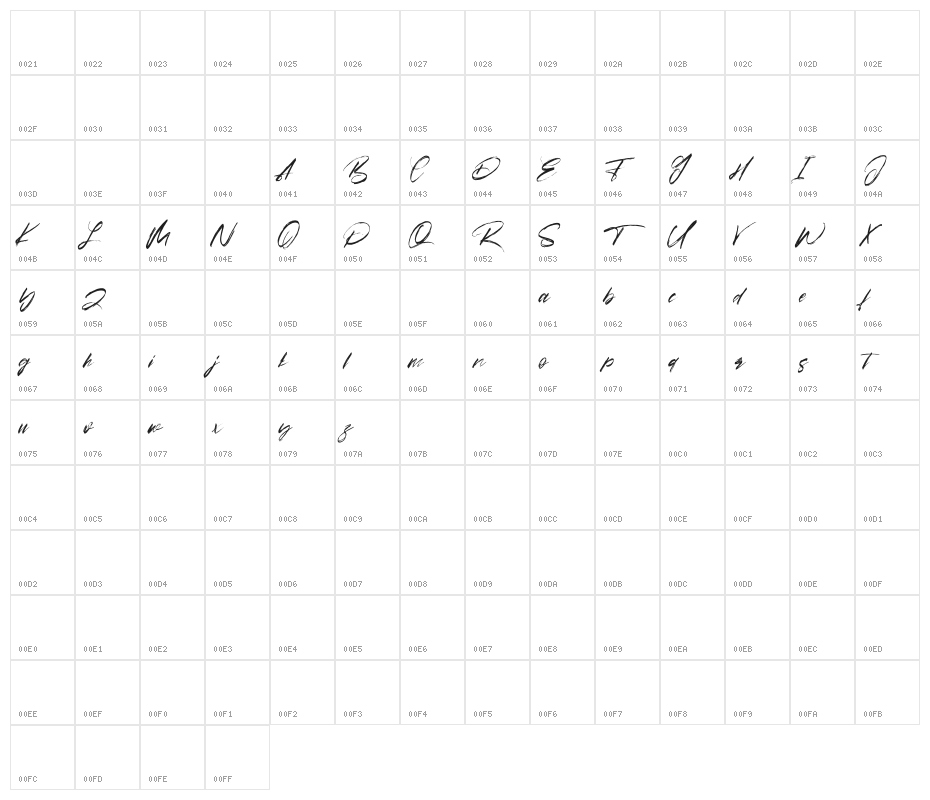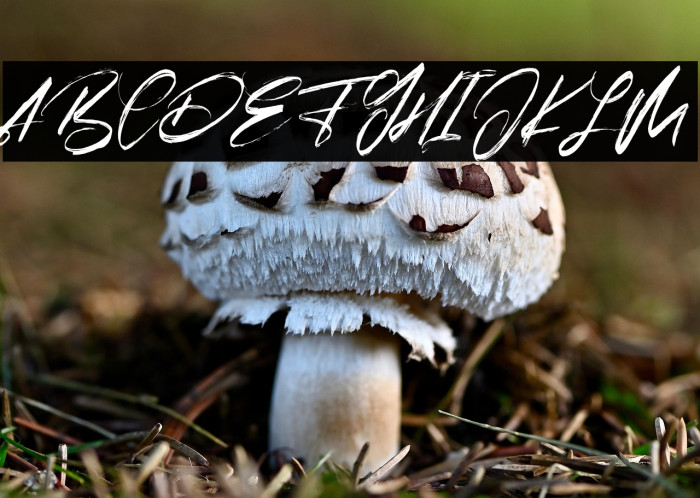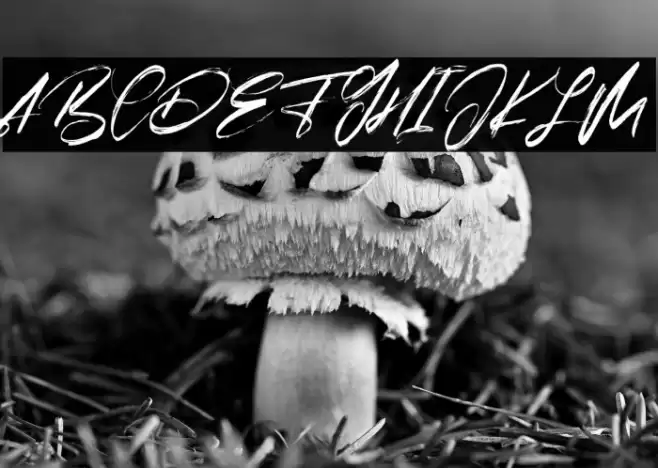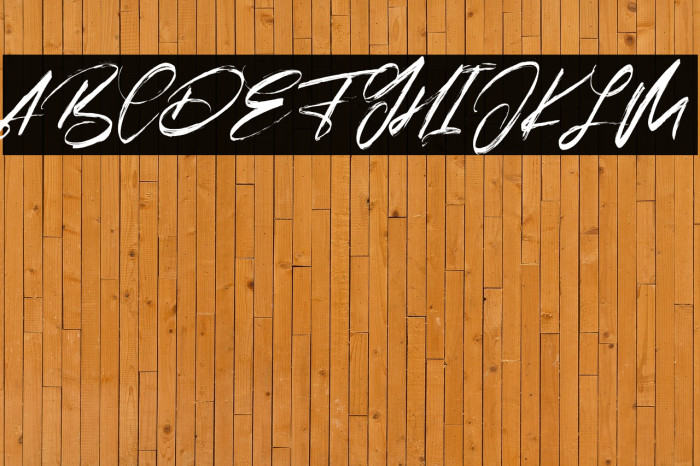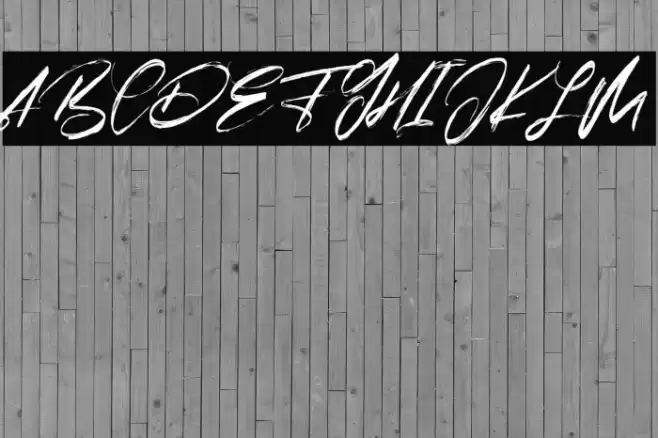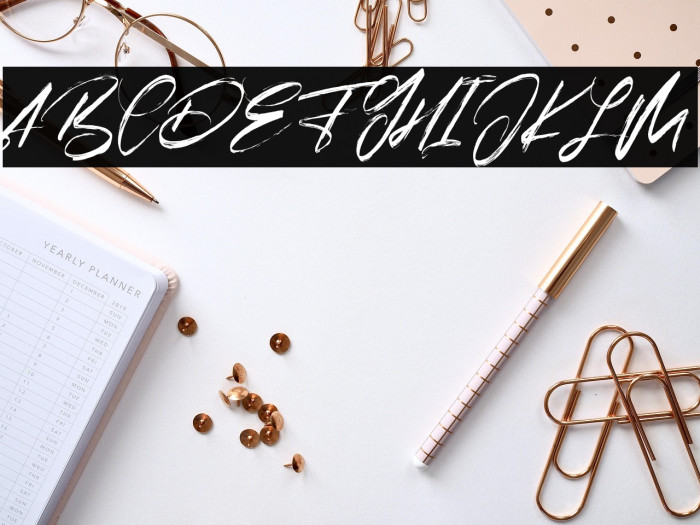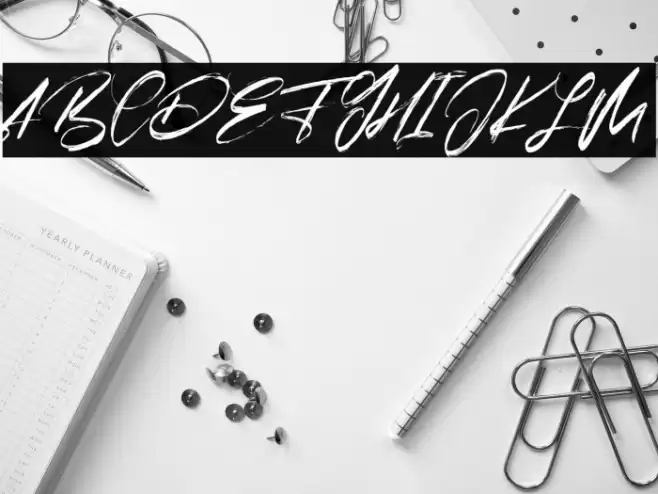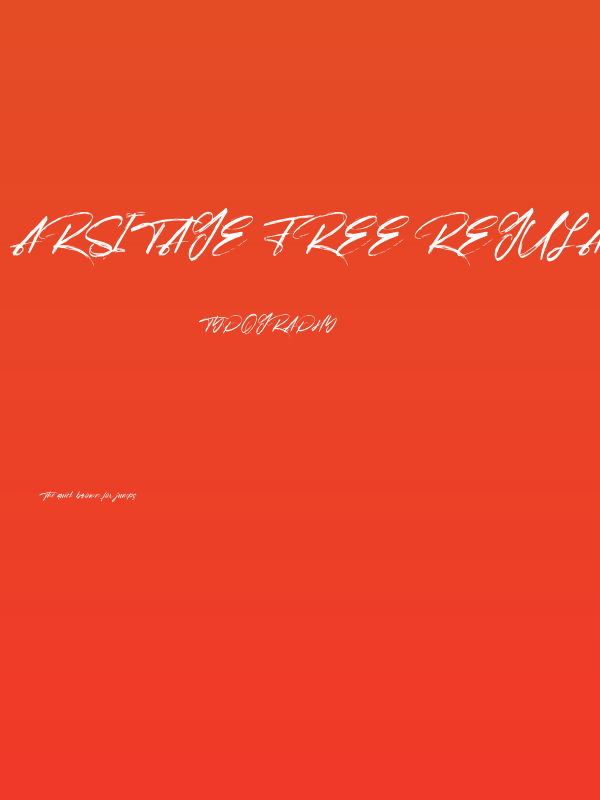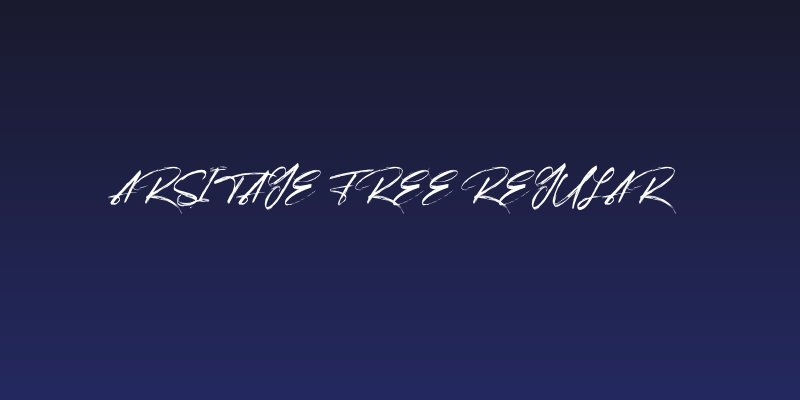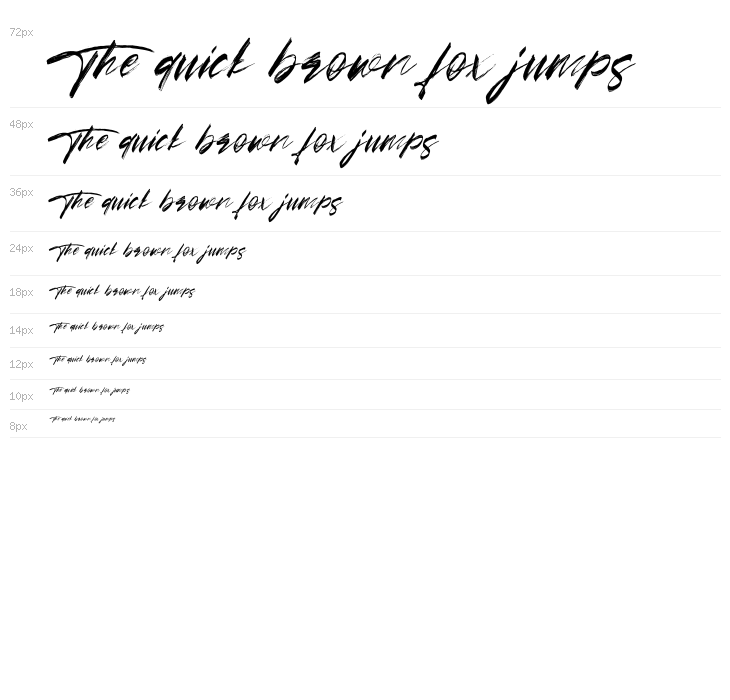
Arsitage Free Regular Font
Arsitage Free Regular Description
This font features an expressive and dynamic script style, characterized by fluid, sweeping strokes that convey a sense of motion and elegance. The letters are connected, with a natural flow that mimics handwriting, making it suitable for projects that require a personal touch. The strokes vary in thickness, adding a lively and artistic flair. The uppercase letters are bold and prominent, while the lowercase letters maintain a consistent style, enhancing readability. This font is ideal for creative projects that aim to capture attention with its unique and stylish appearance.
| Proposed Projects | Ideal for wedding invitations, greeting cards, branding, and artistic posters. |